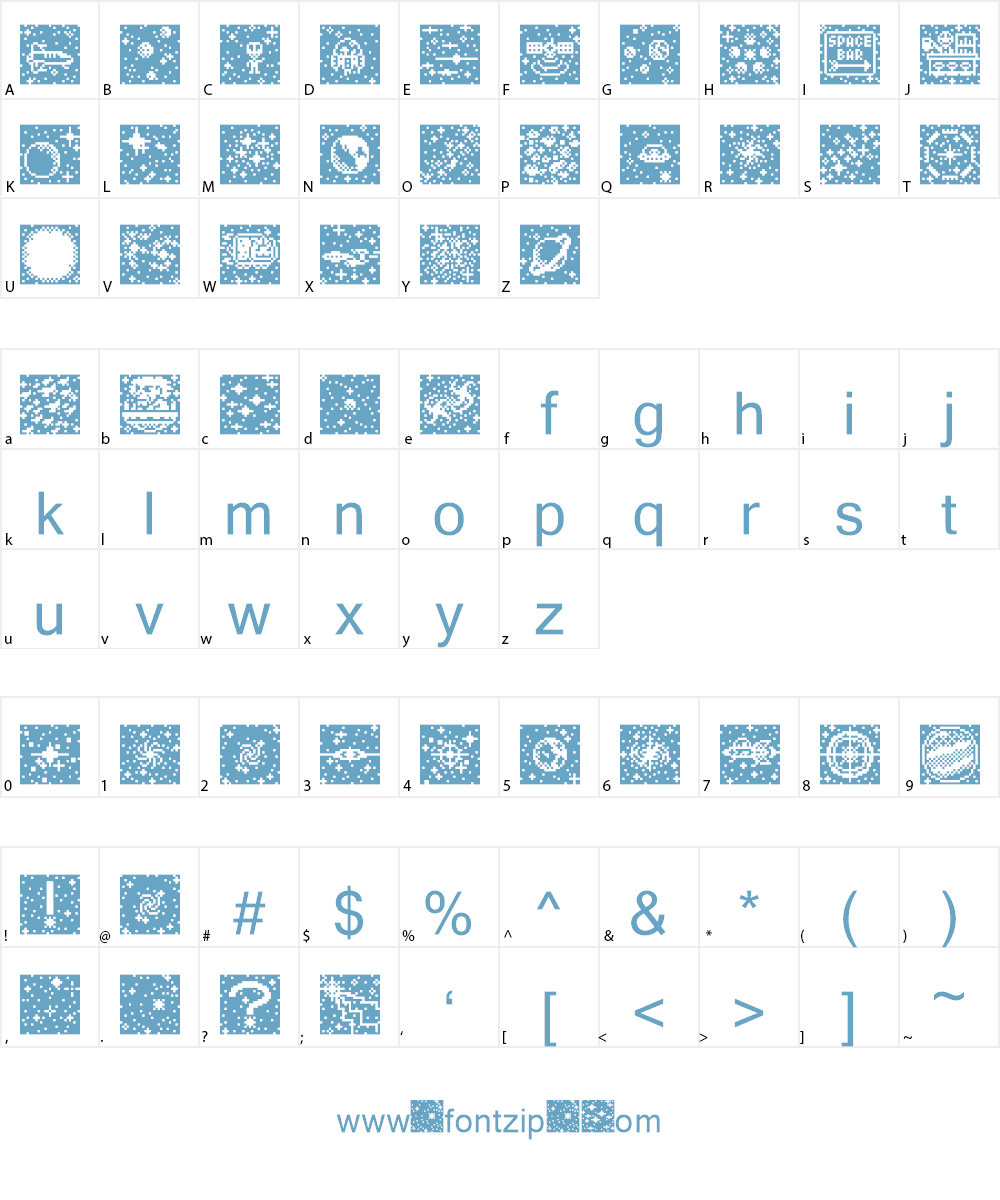
A pixel art galaxy. 27*27 canvasses.
Original size: 20.25pt (use multiples of this size for pixel perfection)
A - Space Shuttle, B - Planetoids, C - Alien, D - Space Station, E - Pulsars, F - Satellite/Telescope, G - Planet & Moons, H - Kempler Rosette, I - Bar Sign, J - Space Bar, K - Interstellar Planet/Dark Star, L - Binary Stars, M - Globular Cluster, N - Earth, O - Galactic Plane, P - Asteroids, Q - Alien in Saucer, R - Black Hole/Wormhole, S - Globular Cluster, T - Dyson Ring, U - Giant Star, V - FS Nebula, W - Nyan Cat, X - Starship Enterprise, Y - Stellar Nursery, Z - Planet & Rings
a - Space Armada, b - Dr. Wily, c - New Stars, d - Binary Star System, e - Colliding Galaxies
0 - Big Star, 1 - New Spiral Galaxy, 2 - Old Spiral Galaxy, 3 - Supernova, 4 - Exploded Star & Nebula, 5 - Planet X, 6 - Quasar, 7 - Se7enty-Se7en's Cruiser, 8 - Hypernova, 9 - Gas Giant
= - Space Hotdogs & Food Sign, / - Planet & Comets, ; - Gamma-Ray Burst, : - High-Tech Planet, ' - Dense-Atmosphere Planet, " - Space City
.,?!-_{space}{nbsp} - Starfields & Map Markers